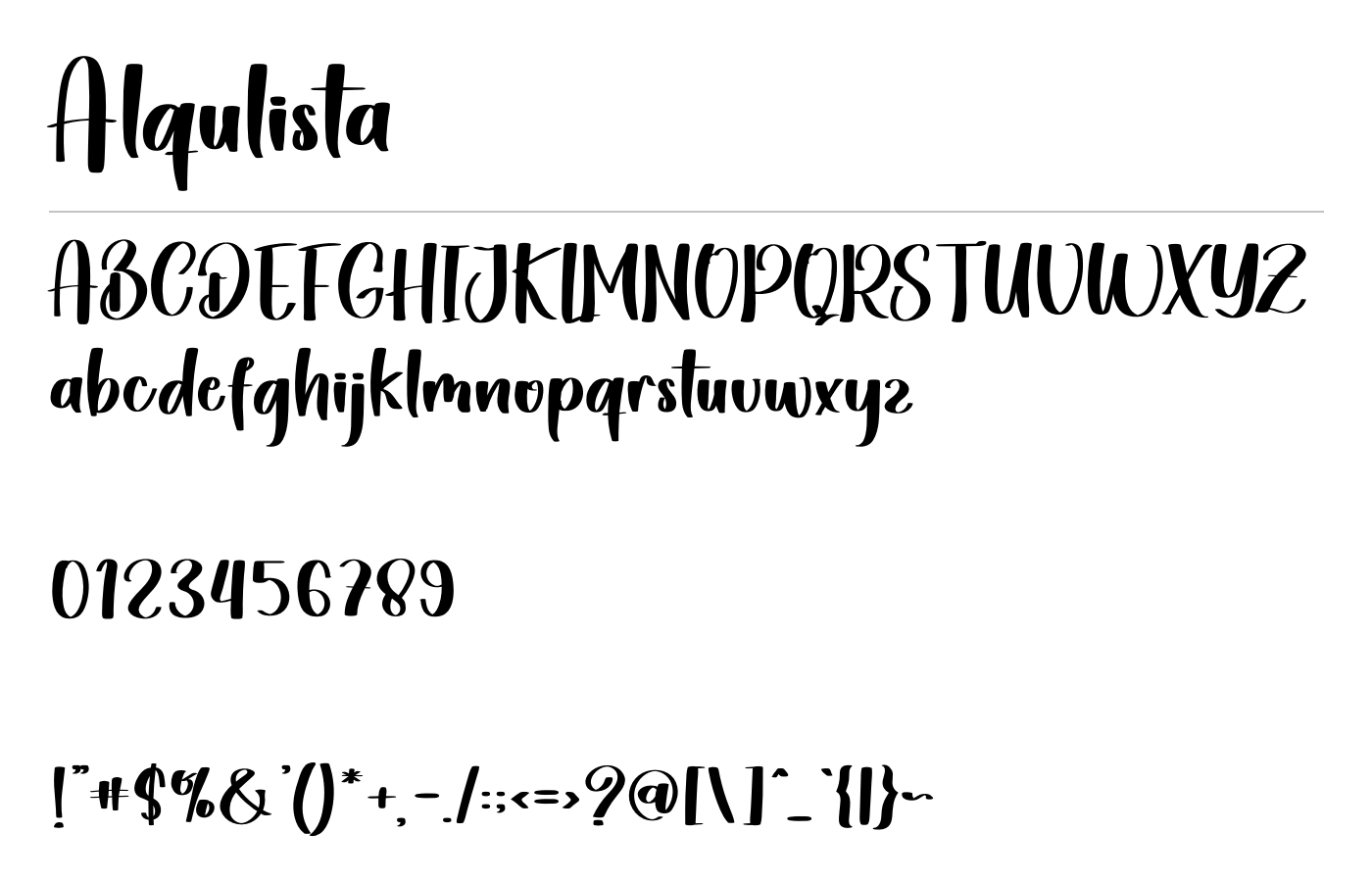
Alqulista is a bold, hand-lettered script font with a playful and casual vibe, featuring tall, slightly condensed characters with smooth, brush-like strokes and subtle contrast. Its unique letterforms and lively curves make it perfect for creative branding, invitations, and headlines that need a friendly, artistic touch. This font works best in designs aiming for a warm, approachable, and handcrafted feel.
Alqulista Font
About Alqulista Font